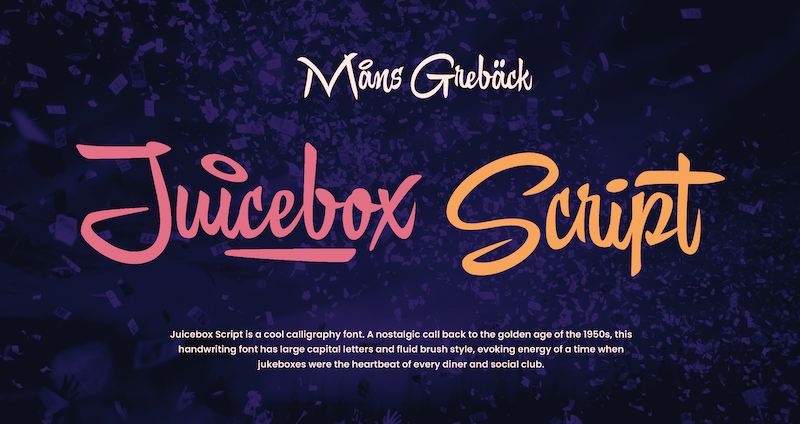
Font name: | Juicebox Script |
NOTE: This font is for PERSONAL USE ONLY! To purchase a commercial license, visit: http://mn.sg/juicebox-script Juicebox Script is a cool calligraphy font with vibes of the golden age of the 1950s. This handwriting font has large capital letters and fluid brush style, evoking energy of a time when jukeboxes were the heartbeat of every diner and social club. For questions, please visit www.mansgreback.com/faq |